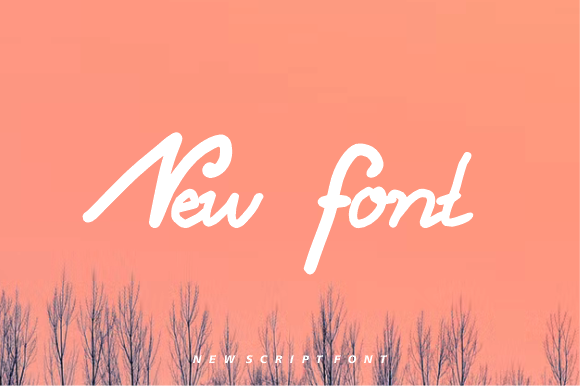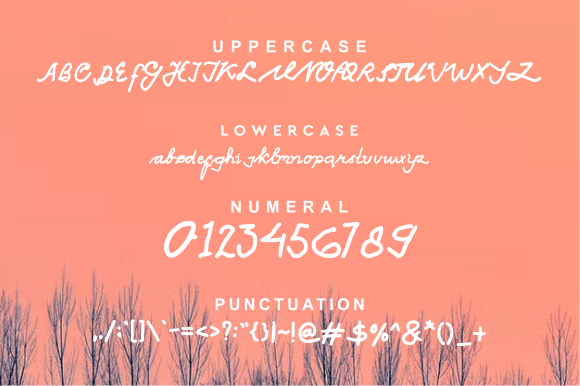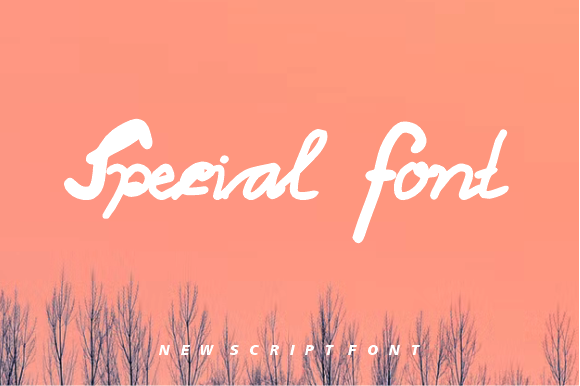
Hasar Astra Font
About Hasar Astra Font
“Hasar Astra” is a clean and delicate script font that embodies the essence of elegance and sophistication. Its design is a testament to the beauty of simplicity, making it a perfect choice for a wide range of creative projects.
The charm of “Hasar Astra” lies in its clean design. Each stroke of this font is carefully crafted to create a look that is both modern and timeless. This gives your designs a professional touch, making them more engaging and appealing to your audience.
What sets “Hasar Astra” apart from other fonts is its delicate script. This gives it a unique feel, making it an ideal choice for projects that require a touch of elegance and sophistication. Whether you’re designing a poster, a flyer, or a print, “Hasar Astra” can add a touch of class to your work.
In the world of design, where trends come and go, “Hasar Astra” stands the test of time. Its clean and delicate script makes it a versatile font that can be used in a wide range of contexts. From modern designs to vintage aesthetics, “Hasar Astra” can add a touch of sophistication to any project.
In conclusion, “Hasar Astra” is more than just a font. It’s a design tool that can help you create stunning and impactful designs. With its clean design and delicate script, it’s sure to add a unique spark to your design projects.